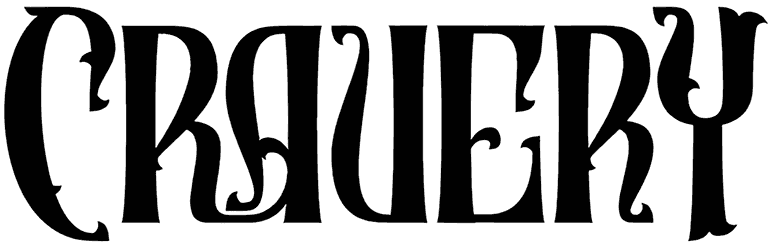
Vinegar Font
Due to the undeniable fact that beauty comes with simplicity, simple serif fonts such as Vinegar would be idealistic for designing evocative content such as posters, billboards, wood engravings, publications, gift cards, and web pages. This font carries a sense of formality, authenticity, royalty, and momentum, so you can get the best outcome out of it.
Designed by: Jelloween